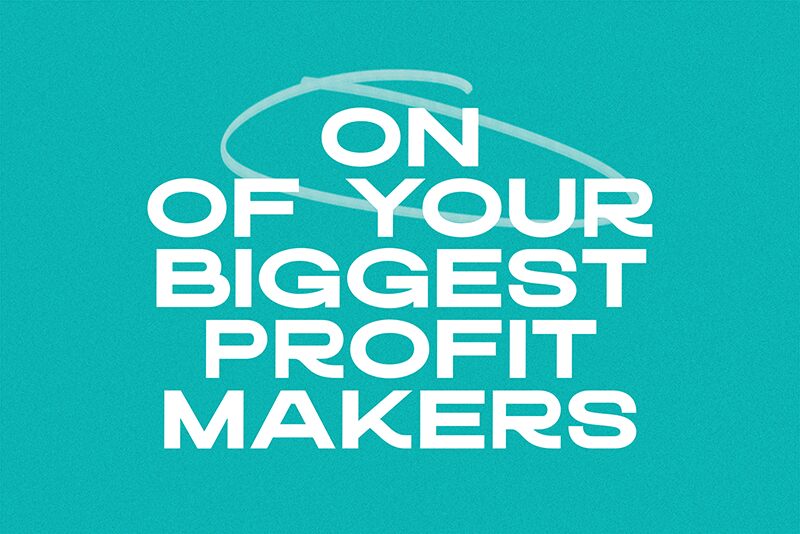
SCRIB SANS
Scrib sans font by Riyadh Rahman is a free bold sans serif display font. It stands out with blocky, near-rectangular curves and dense, jet‑black strokes that read like precision‑cut slabs. The geometry is tight and confident, yet softened by subtle rounding, giving headlines a machined polish without feeling cold.
This free font shines on posters, tech or esports logos, gaming titles, packaging, event flyers, and bold signage where you need instant impact and steady rhythm from a distance. Using Scrib sans, its compact counters and firm weight deliver solid color and unmistakable presence. Pair with a light grotesk for body copy, and add a touch of tracking at large sizes to let those heavy shapes breathe.